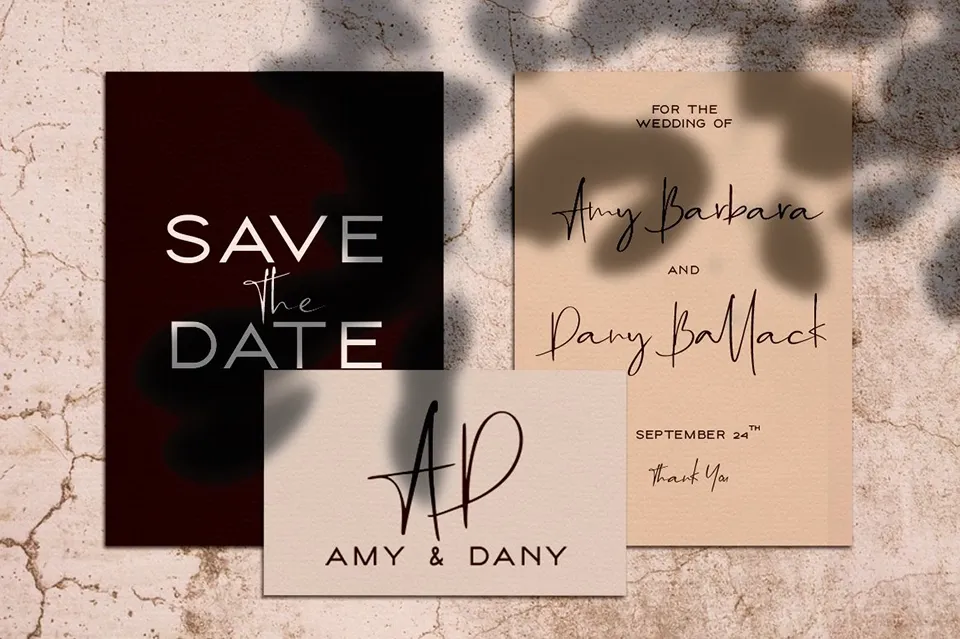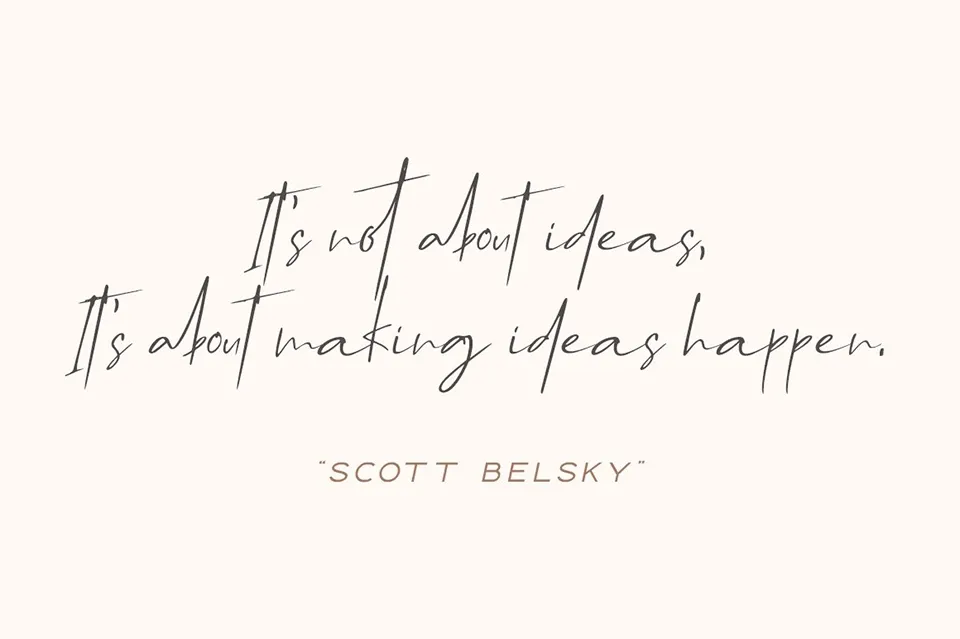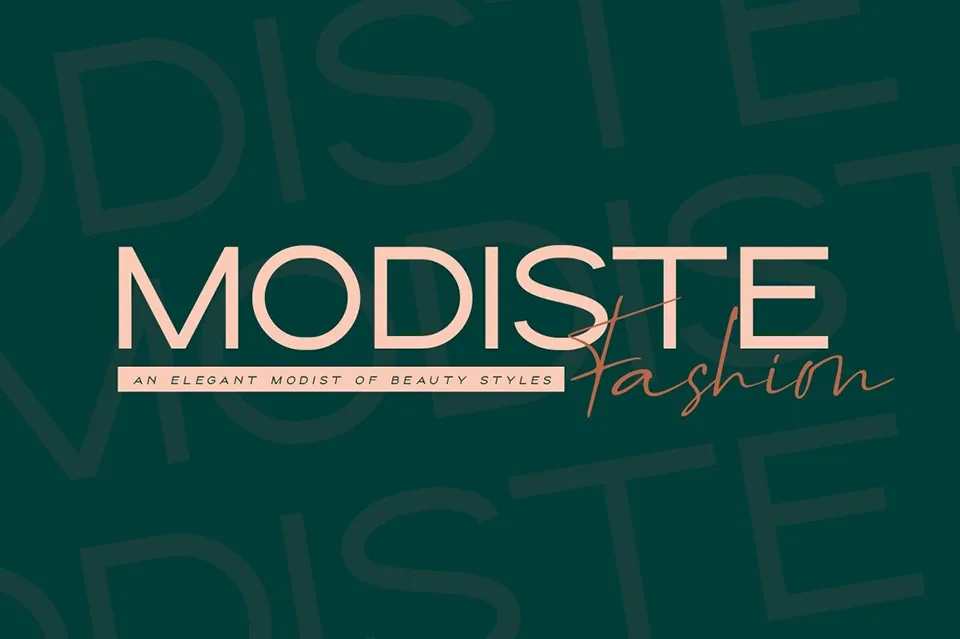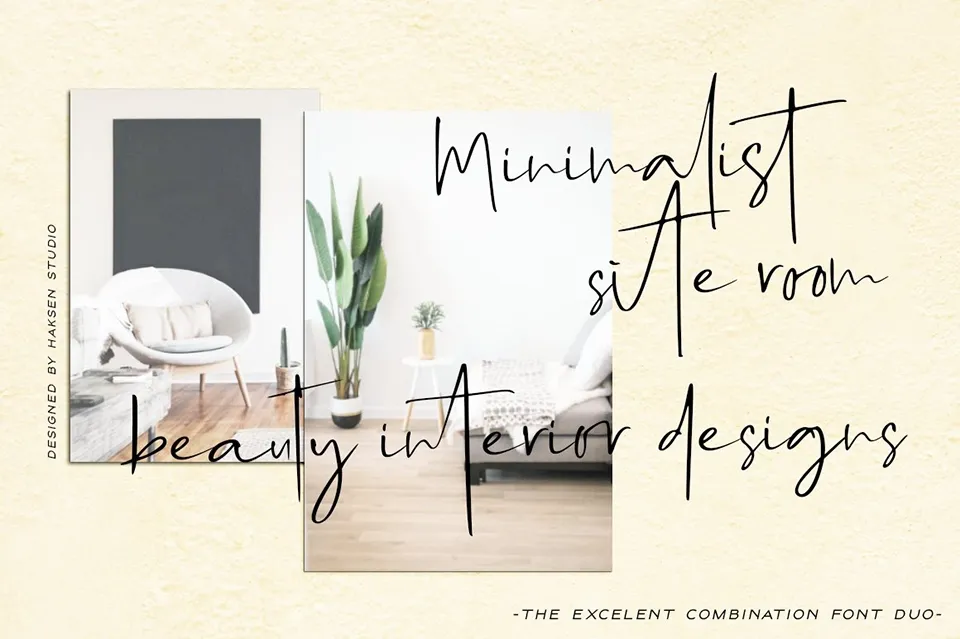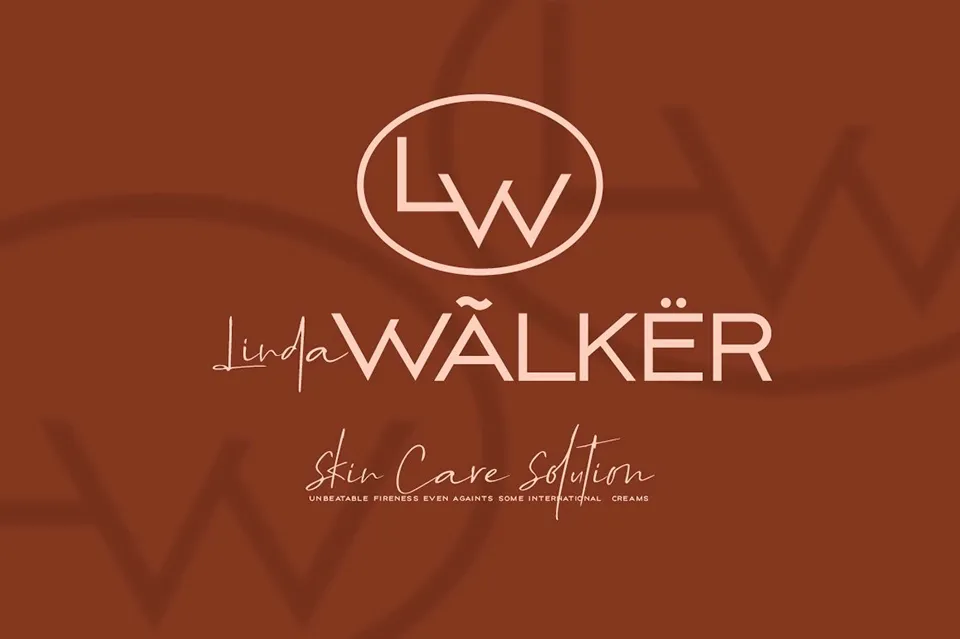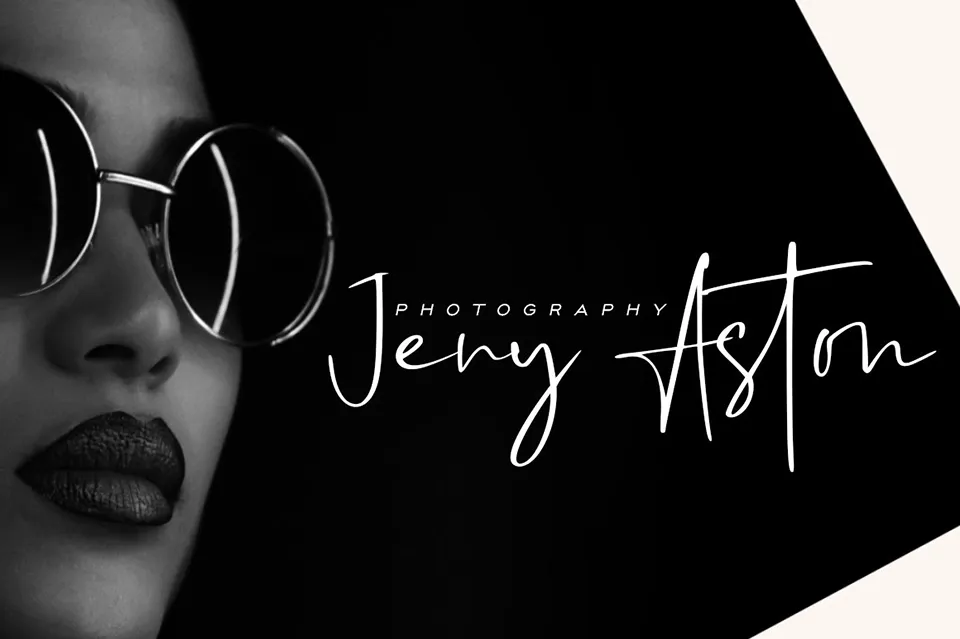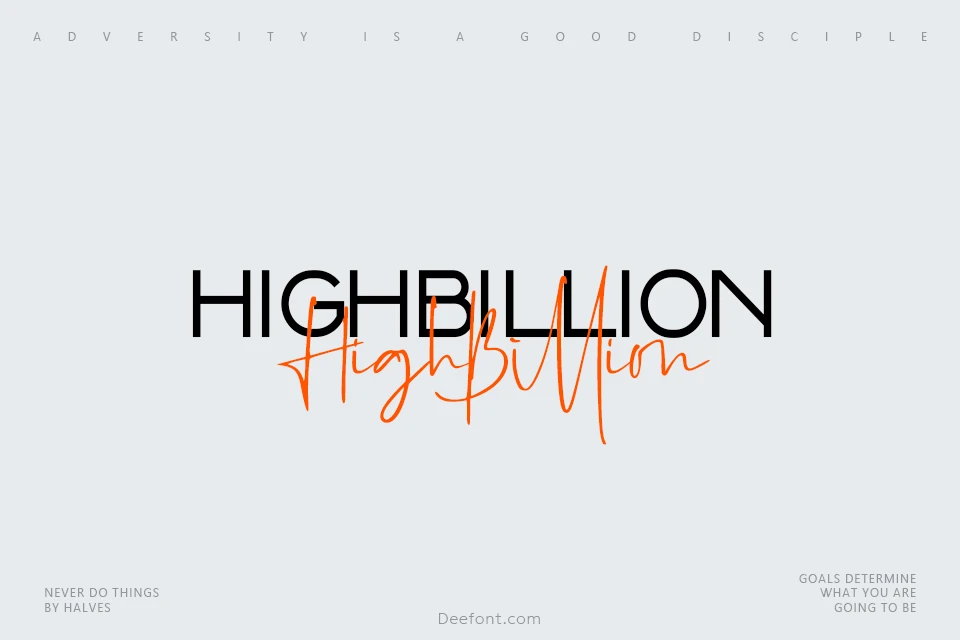
High Billion Font Duo
High Billion Font Duo is a stunning combination of two complementary typefaces designed to elevate your creative projects. This duo features a sleek, modern sans-serif font paired with an elegant, handwritten script, offering versatility and sophistication. Perfect for branding, logos, invitations, and social media designs, High Billion blends bold professionalism with artistic flair. The clean sans-serif provides structure and clarity, while the flowing script adds a touch of personality and charm. Together, they create a harmonious balance that works beautifully across various design styles. High Billion Font Duo is the ideal choice for designers seeking both functionality and aesthetic appeal.